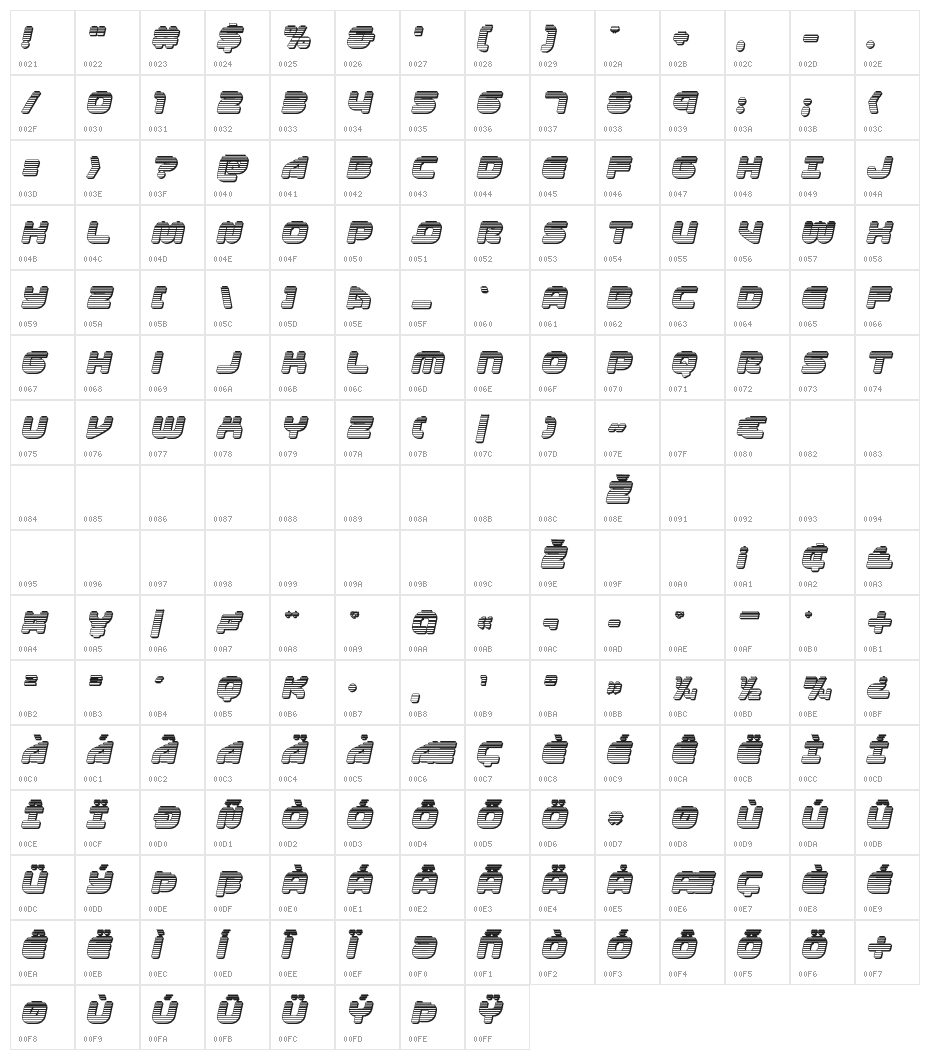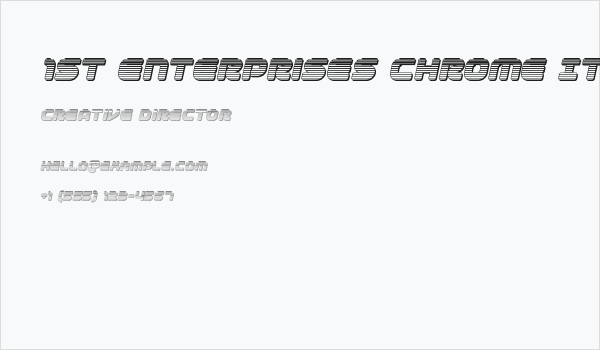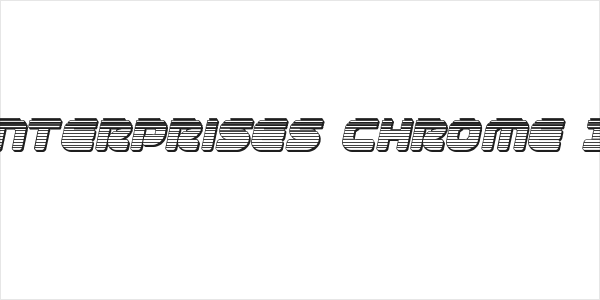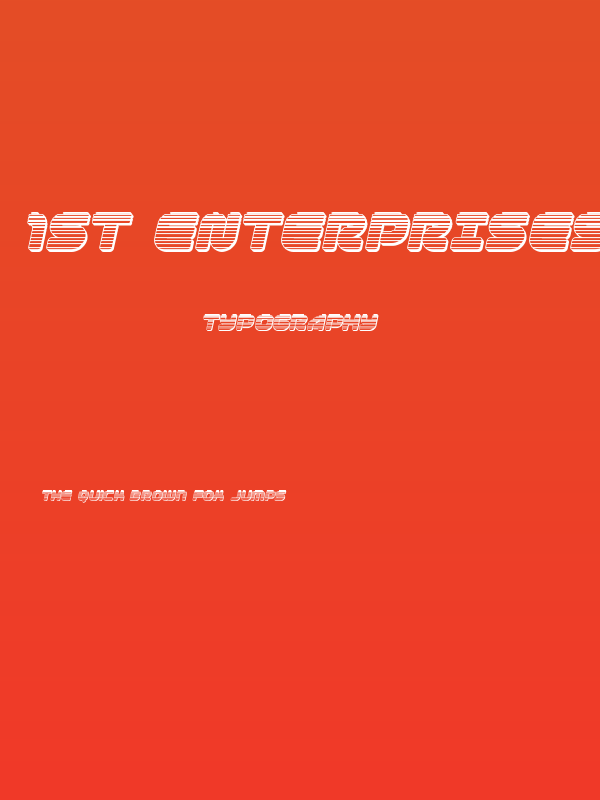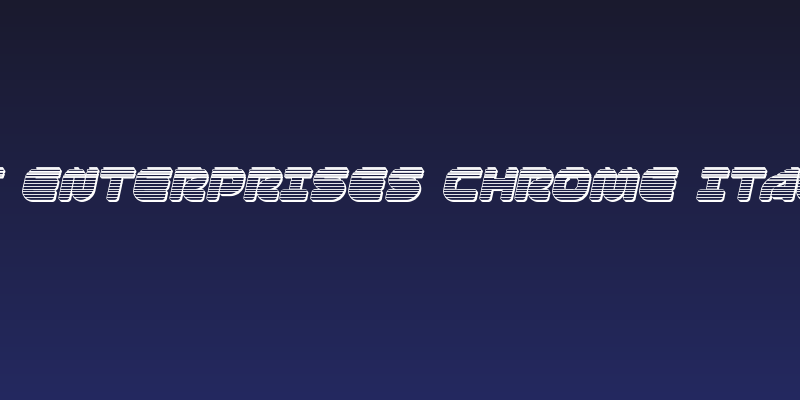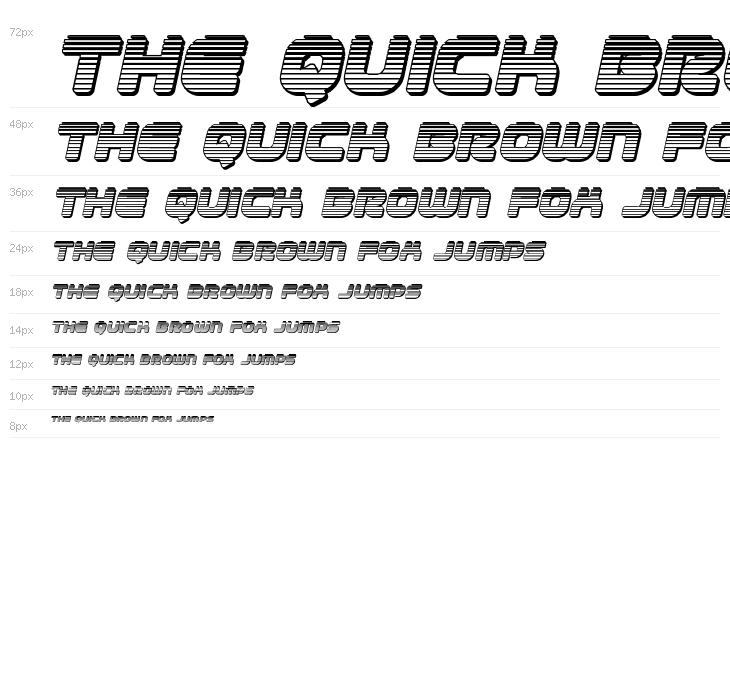
1st Enterprises Chrome Italic Font
1st Enterprises Chrome Italic Description
This font features a bold, futuristic design with a distinct chrome-like appearance. The characters are constructed with horizontal lines that create a layered effect, giving a sense of depth and dimension. The italic slant adds a dynamic and forward-moving feel, enhancing its modern aesthetic. Each letter and number is crafted with precision, maintaining consistency across the set. The special characters follow the same design principles, ensuring a cohesive look. This font is ideal for projects that require a strong, eye-catching display typeface.
| Proposed Projects | Ideal for technology branding, sci-fi themed posters, video game titles, and futuristic event invitations. |